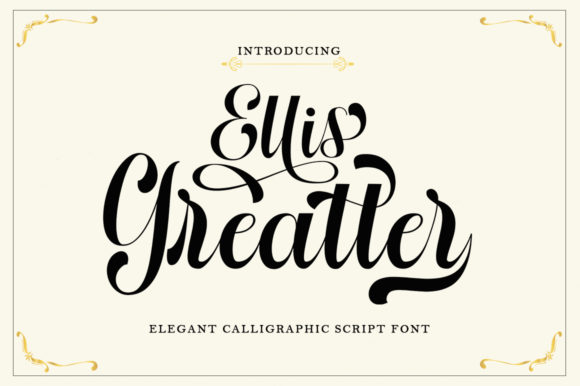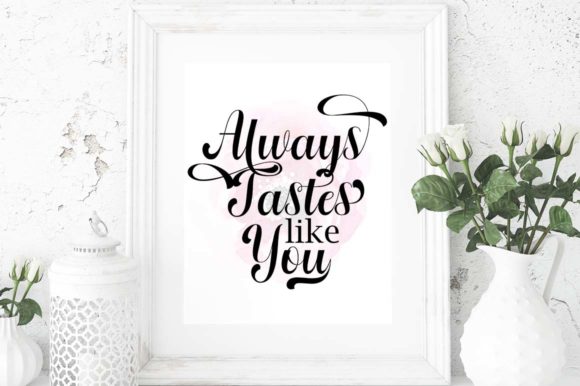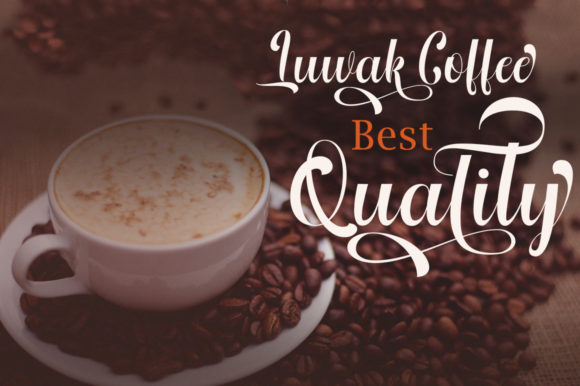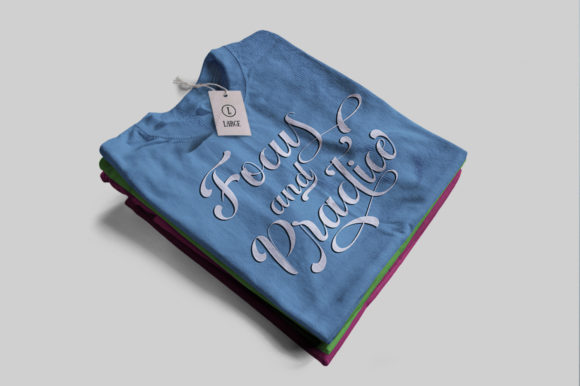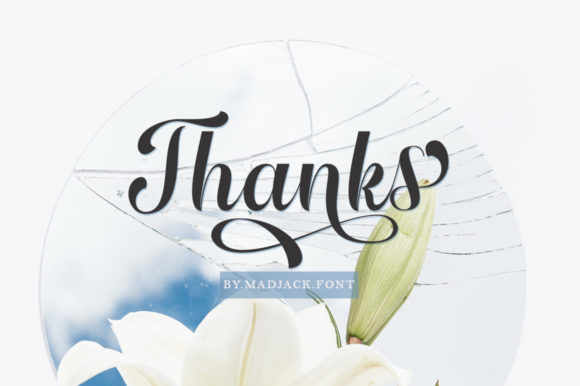
HomeScript FontsEllis Greatter Font Script Fonts Ellis Greatter Font FacebookXPinterestWhatsApp Ellis Greatter Font Poster 2 Ellis Greatter Font Poster 3 Ellis Greatter Font Poster 4 Ellis Greatter Font Poster 5 About Ellis Greatter Font Ellis Greatter is an elegant script font with a unique style. Get inspired by its contemporary coolness! DOWNLOAD ON CREATIVE FABRICAThis font is sold and delivered by Creative Fabrica. Font Canyon may earn a commission if you buy through this link. People also explored Love Mama Font Real Estate Font Shadow Lines Font Kids Zona Font Family Font Philadelphia Font Aldine Font Holiday Duo Font Lemonode Font 329 0 TagsEllis Greatter Font Previous articleRomantic Kissing FontNext articleThe Secret Love Font LEAVE A REPLY Cancel reply Comment: Please enter your comment! Name:* Please enter your name here Email:* You have entered an incorrect email address! Please enter your email address here Website: Save my name, email, and website in this browser for the next time I comment. Personal Use Free True Love Personal Use Free Read more about this font Boldace Personal Use Free Read more about this font Rocketto Personal Use Free Read more about this font Cleopatra Font Personal Use Free Read more about this font BLOG Best Fonts for YouTube Videos: Make Your Thumbnails Stand Out Best Fonts for YouTube Videos: Make Your Thumbnails Stand Out Choosing the right font can make a massive difference in how your YouTube videos perform.... 5 Fonts That Will Dominate Design Trends in 2026 Transform Your Website: Elevate Your Typography with 7 Best Web Font Generators Modern Sans-Serif Fonts That Brands Love in 2025